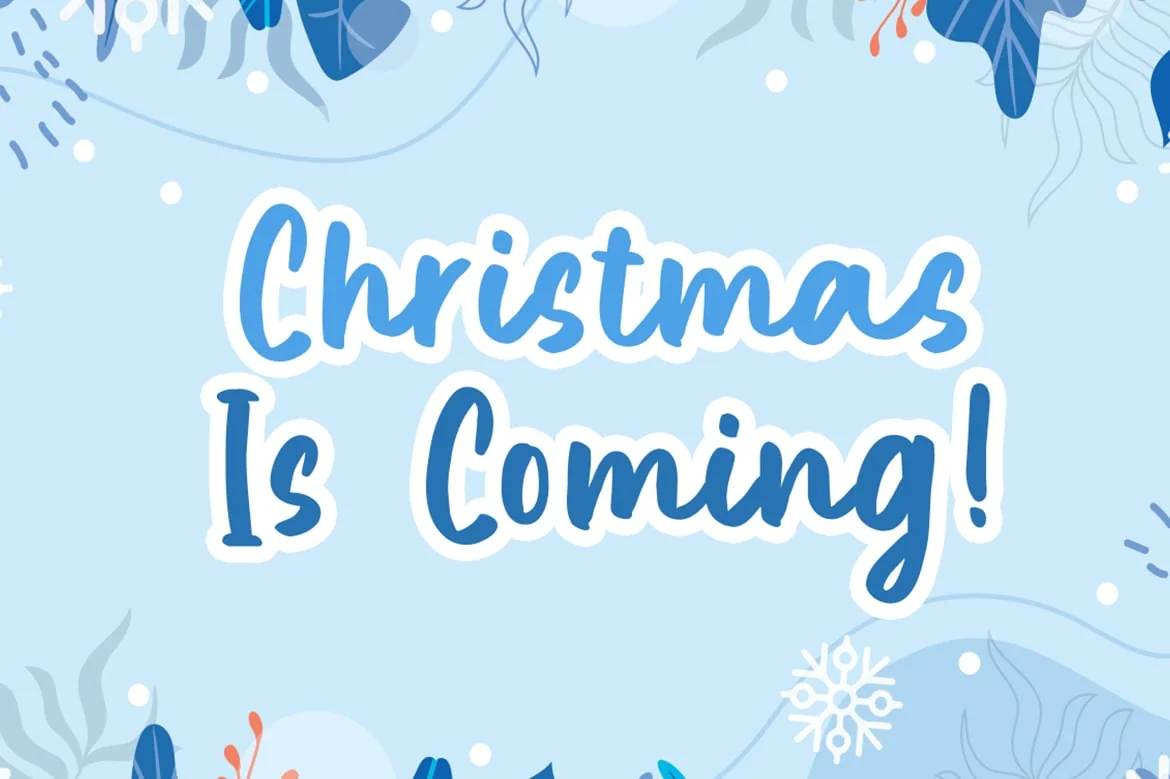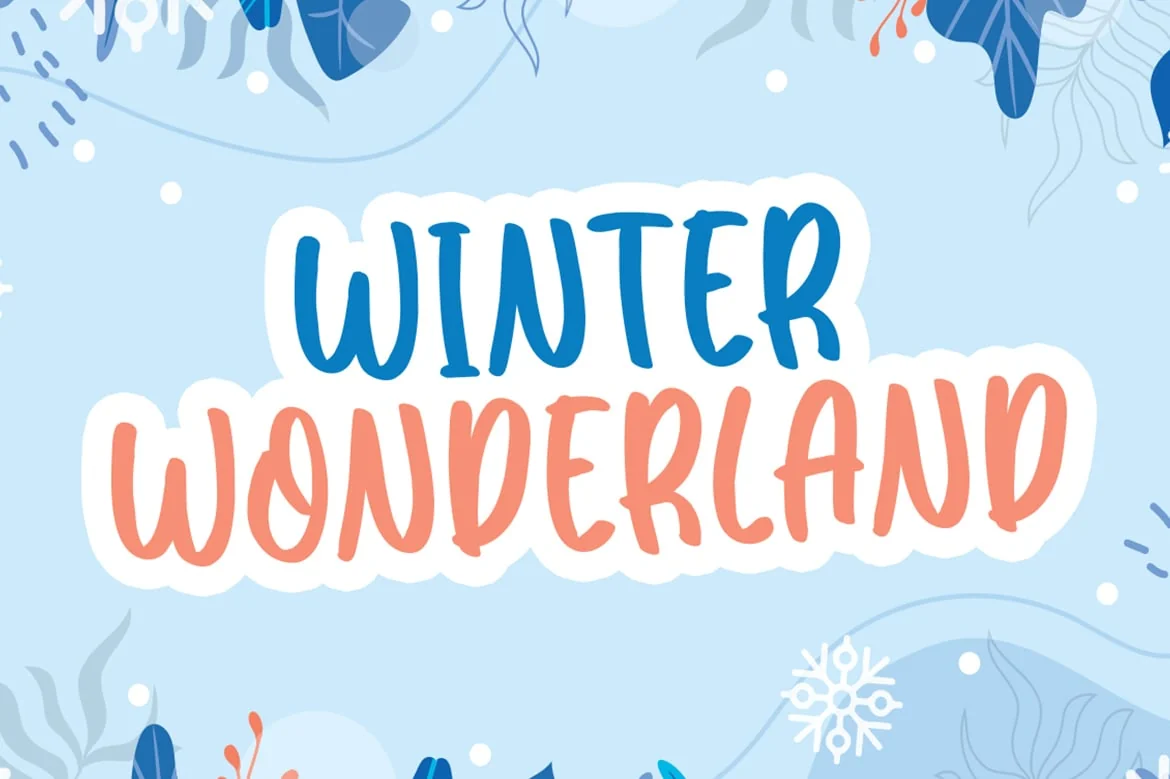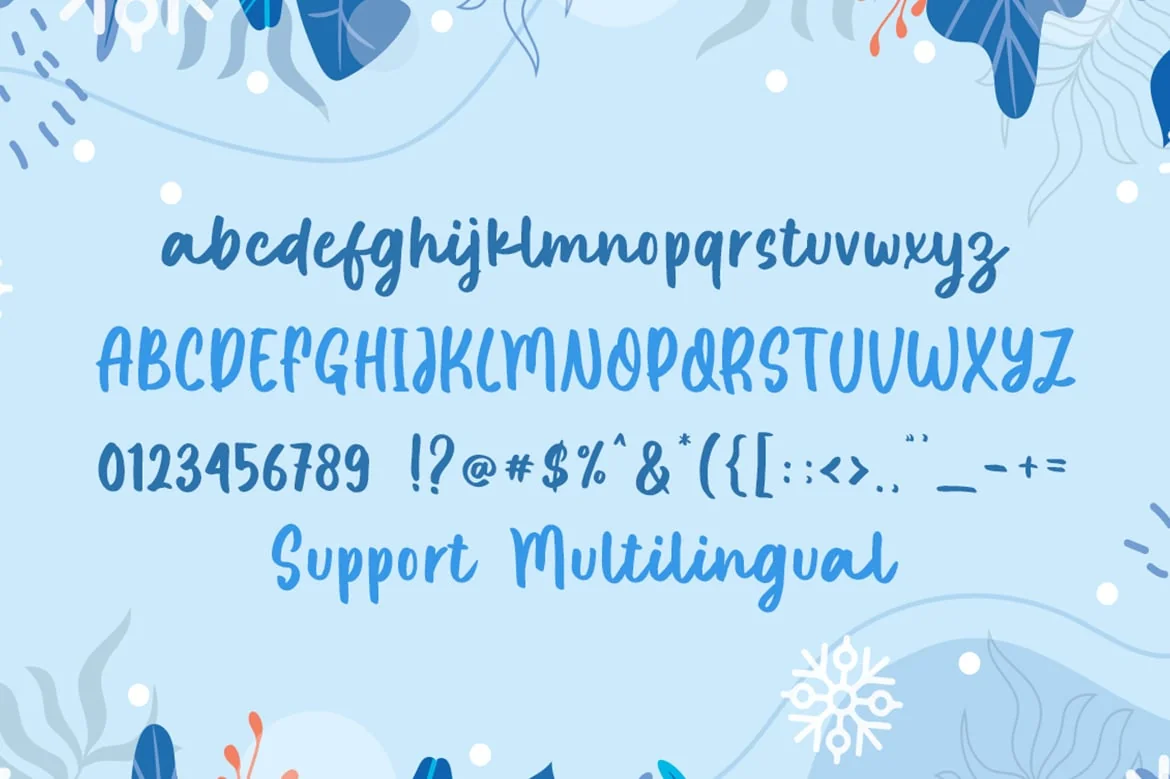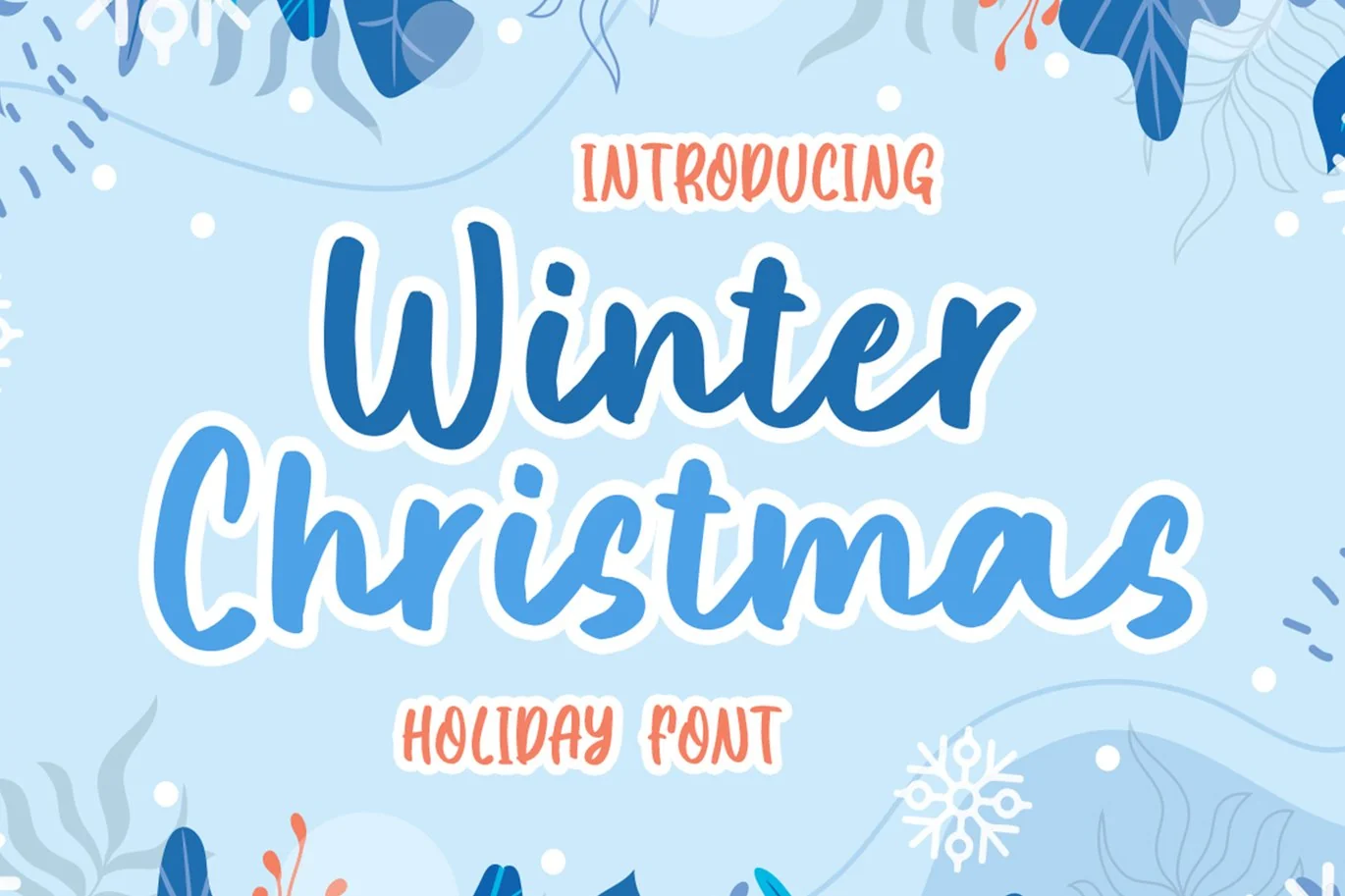
Winter Christmas Fonts
Winter Christmas is a cute and colorful script font. It embodies playfulness and authenticity
and is the perfect choice for any children activity or christmas project.